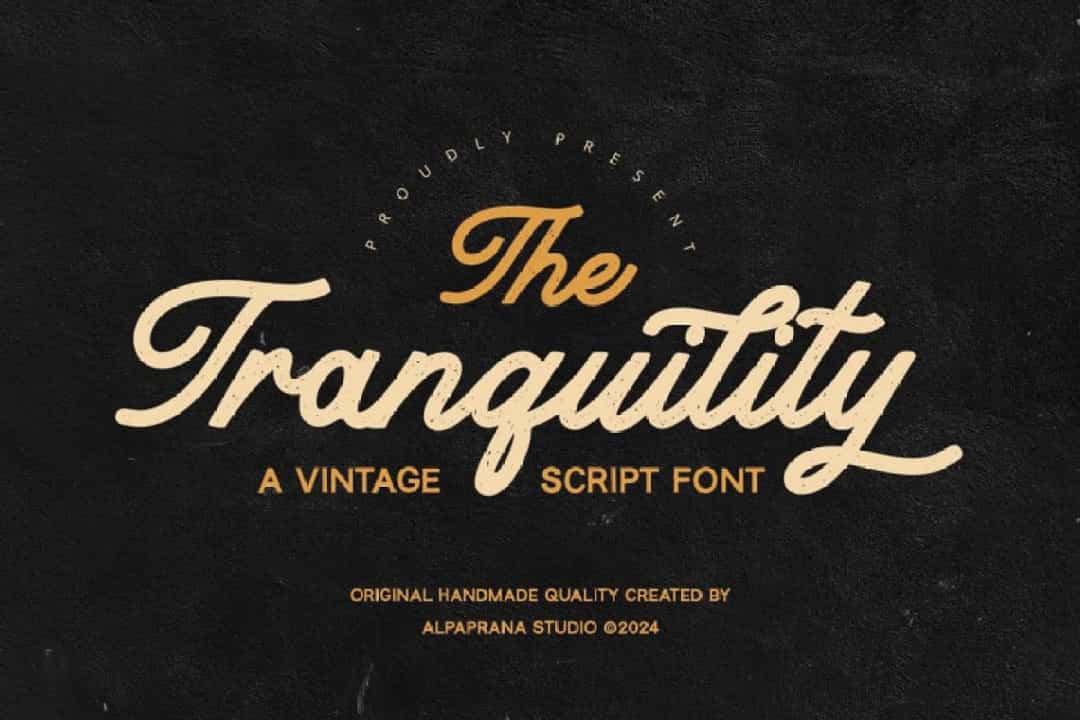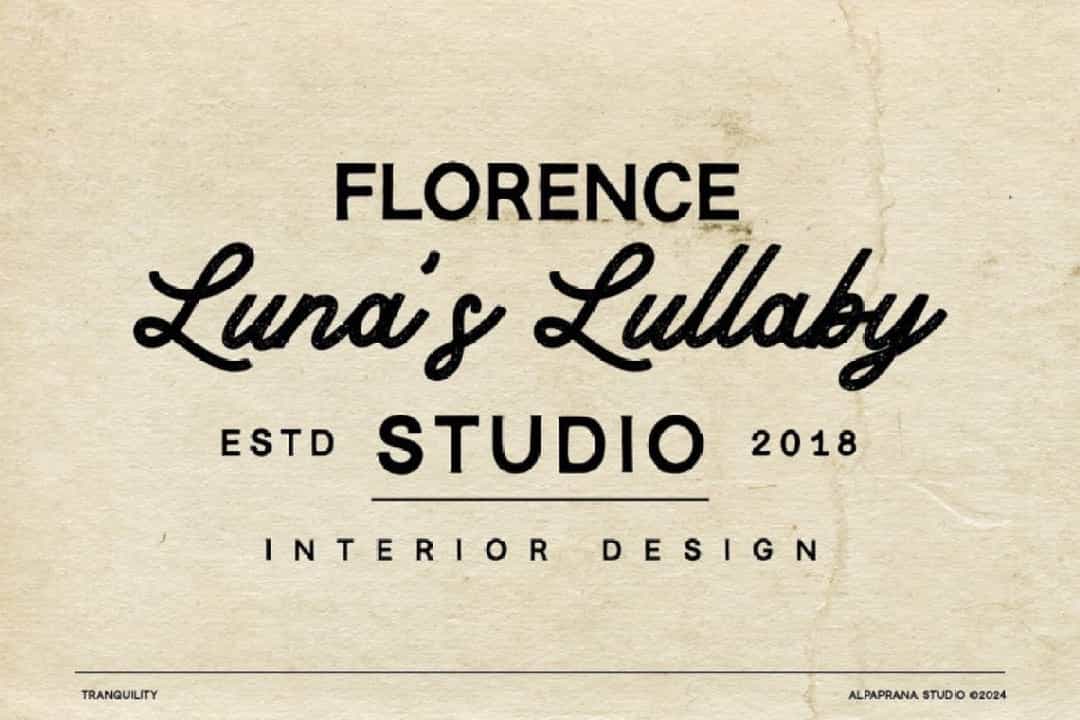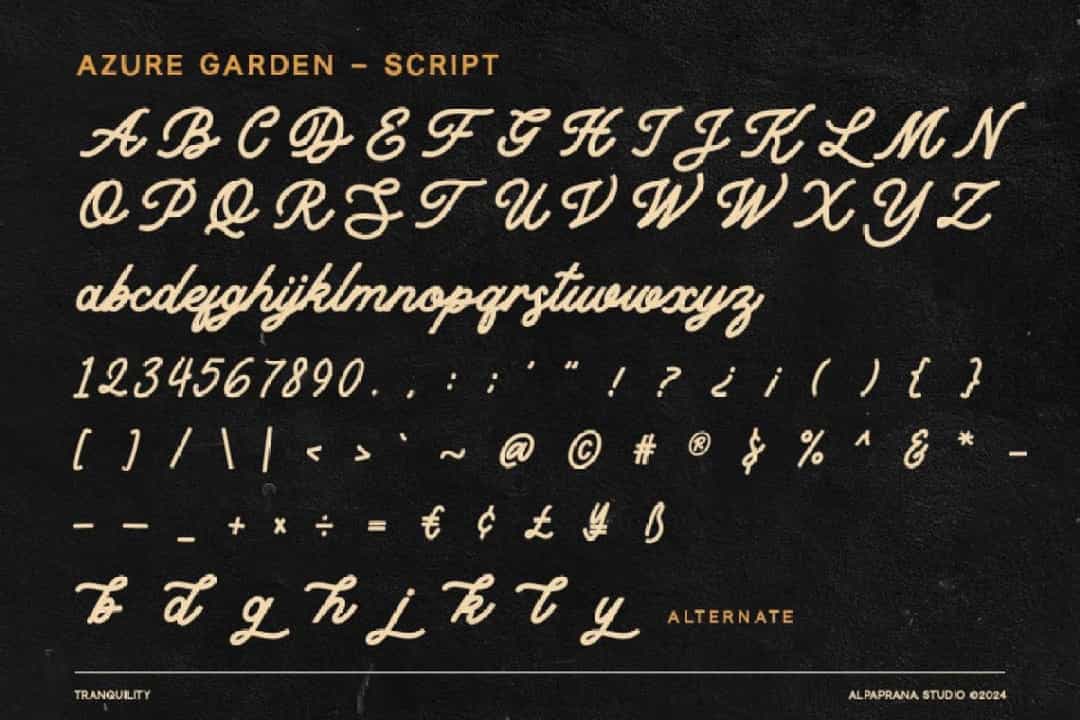
Tranquility is a beautiful handwritten script font with a vintage aesthetic that exudes warmth and nostalgia. The graceful curves and delicate strokes exude elegant beauty and grace – ideal for invitations, branding or designs with vintage themes. Tranquility brings grace and elegance to any design while captivating people with its charm.